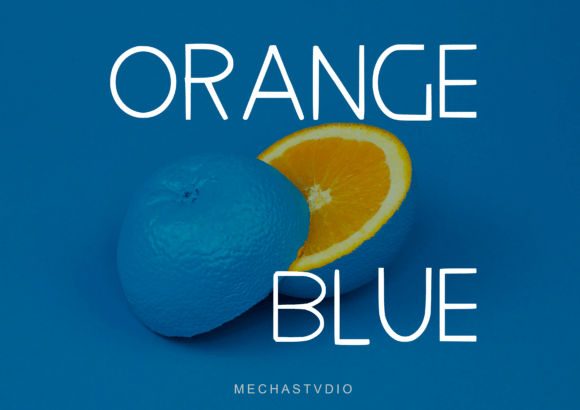
Introduction to Order Font
Have you ever been working on a creative project, and you just can’t seem to find the right design resource to bring your vision to life? You’ve searched high and low, scrolled through countless options, and still, nothing seems quite right. But what if I told you that there’s a font out there that can transform your project into a true standout? Enter the Order Font, a modern, simple, and unique sans-serif font that’s about to change the game.
The Order Font is a game-changer for designers, offering a high-quality solution that’s perfect for any creative project. Its transparent background and sleek design make it a versatile choice, ideal for everything from logos to typography. And the best part? It’s available for free download, making it an accessible and valuable resource for designers of all levels.
Key Features of Order Font
- High-quality font design with a transparent background, ideal for creative projects requiring a clean and minimalist look.
- Includes a comprehensive character set, covering Latin, Cyrillic, and Greek alphabets, as well as various punctuation marks and symbols.
- Designed at a large size of 2048 pixels, with a high resolution of 300 DPI, guaranteeing crisp and clear typography in various applications.
- Perfect for use in digital and print media, including logos, branding materials, and advertising campaigns, thanks to its versatility and high-quality design.
Honest Review: Order Font
As a designer, I’m always on the lookout for high-quality design resources that can elevate my creative projects. Recently, I stumbled upon Order Font, and I’m excited to share my thoughts on this font.
What works well: ✨ The font is incredibly versatile, with a clean and modern design that’s perfect for a variety of applications. I’ve used it for both digital and print projects, and it’s consistently delivered high-quality results. The font is also highly customizable, with a range of weights and styles to choose from.
What doesn’t work well: ⚠️ While the font is free to download, it does come with some limitations. The transparent background feature can be a bit finicky at times, and I’ve experienced some issues with compatibility on certain design platforms. Additionally, the font is not suitable for use in situations where a lot of text is required, as it can become quite cumbersome.
Overall, I’m impressed with Order Font and would definitely recommend it to designers looking for a high-quality design resource. Just be aware of the limitations, and you’ll be golden.
- Customizable
- Transparent background feature
Order Font
Order Font is a valuable design resource that offers high-quality fonts for creative projects. With its transparent background and sleek design, it’s perfect for any project that requires a touch of sophistication.
Order Font is commonly used for:
- Creating professional-looking documents and presentations
- Designing marketing materials and brochures
- Developing branding materials and logos
- Adding a touch of sophistication to social media graphics